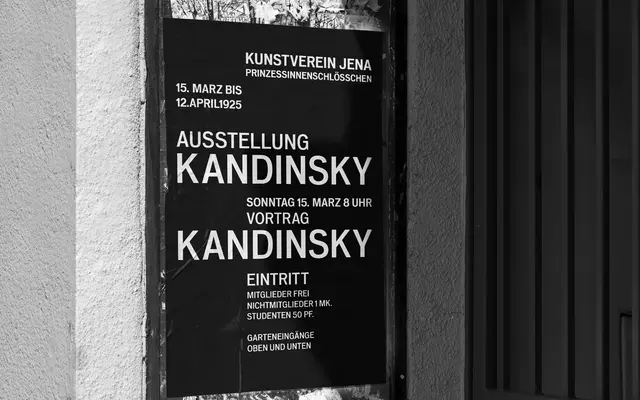
Woolworth
The Northern Block · 2022
A contemporary grotesque in six weights with italics, drawing on late 19th-century designs for a clean, optically balanced text face.
Woolworth takes cues from the grotesques of the late 19th century, refined into a 12-font family spanning six weights with matching italics. Alternate forms for lowercase a, e and g, along with seven numeral variants, small caps and ligatures, give it enough flexibility for considered typesetting. Language support covers Western, Southern and Central European Latin, and version 2.0 was released in 2022.
Explicitly described as a contemporary grotesque inspired by late 19th-century grotesque designs, with handcrafted warmth typical of the humanised grotesque subcategory.